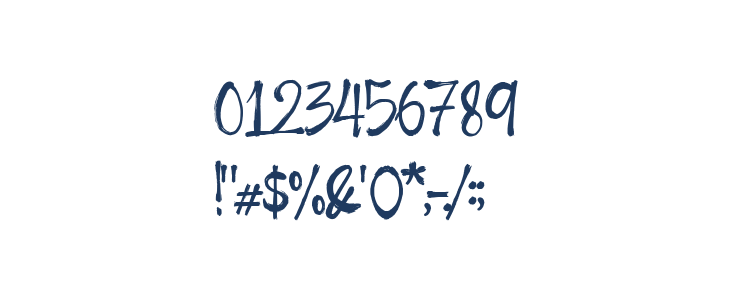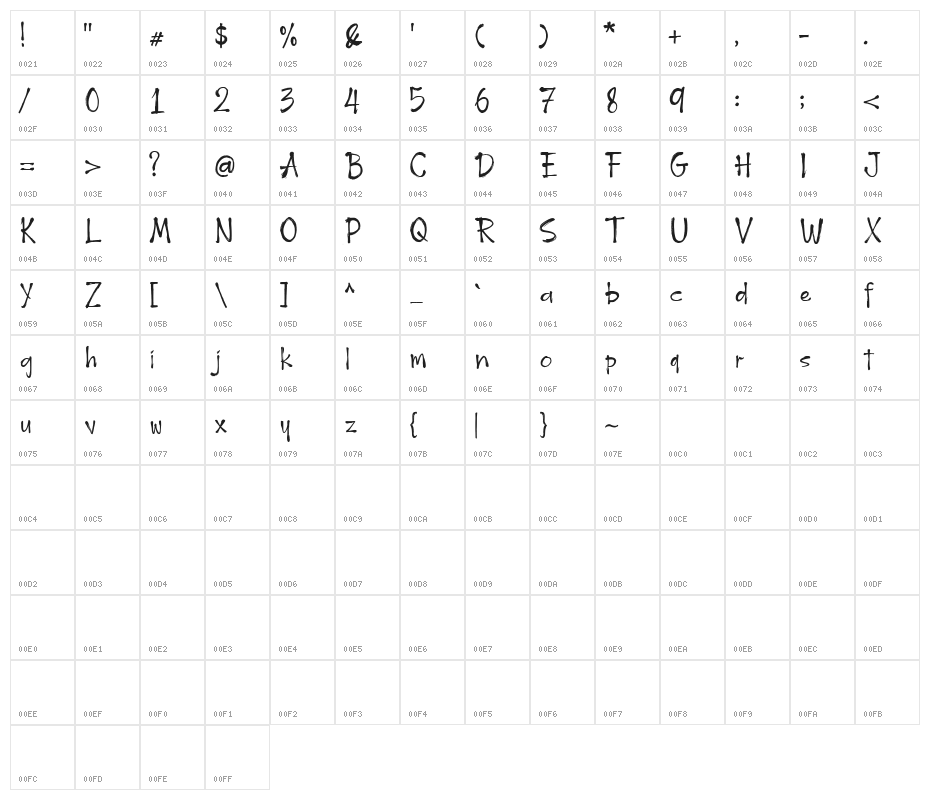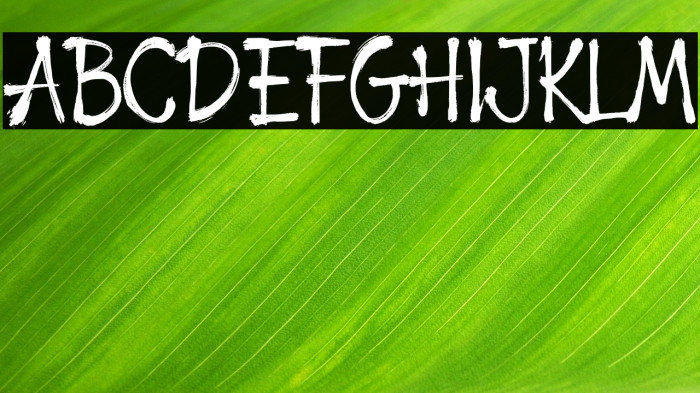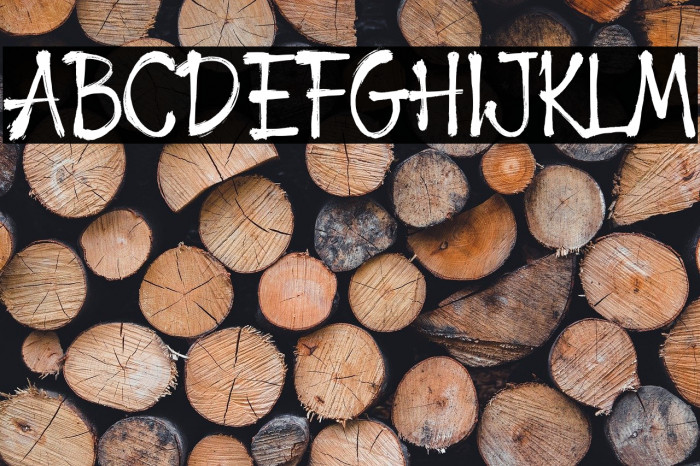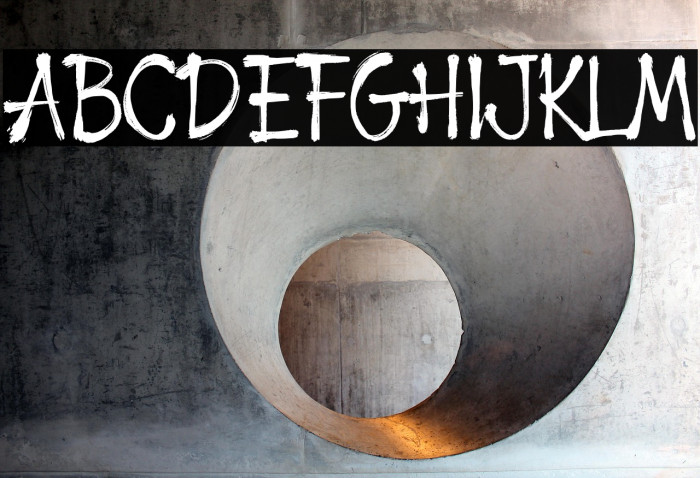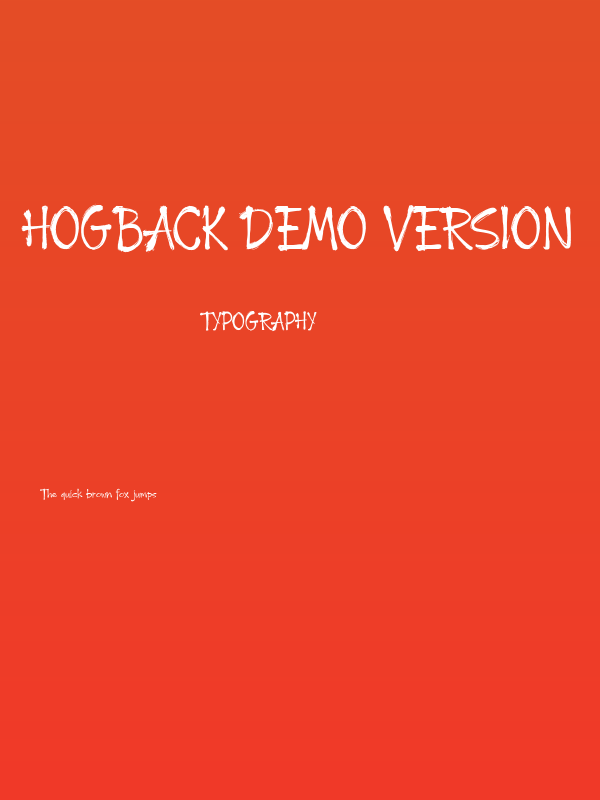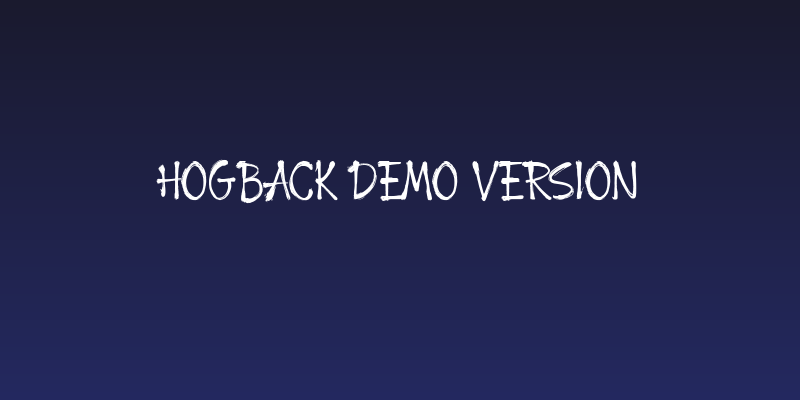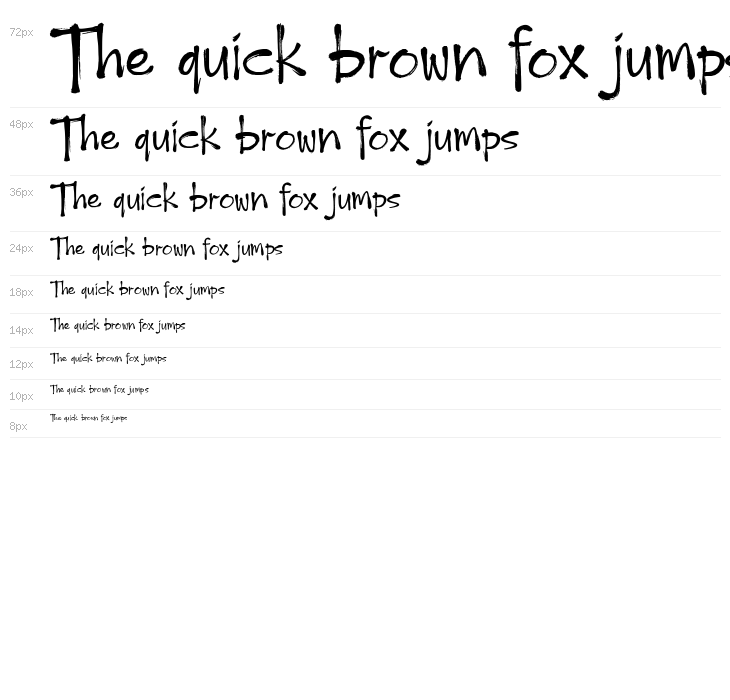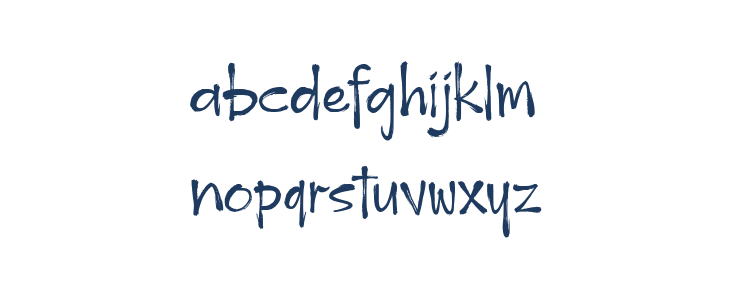
Hogback Demo Version Font
Hogback Demo Version Description
This font features a bold and expressive handwritten style, characterized by its dynamic and slightly irregular strokes. The uppercase letters are tall and commanding, while the lowercase letters maintain a consistent flow with a casual, yet artistic flair. The numerals are distinct and easy to read, complementing the overall aesthetic. Special characters are creatively integrated, adding to the font's versatility. The brush-like texture gives it a raw, organic feel, making it suitable for projects that require a personal touch or a creative edge.